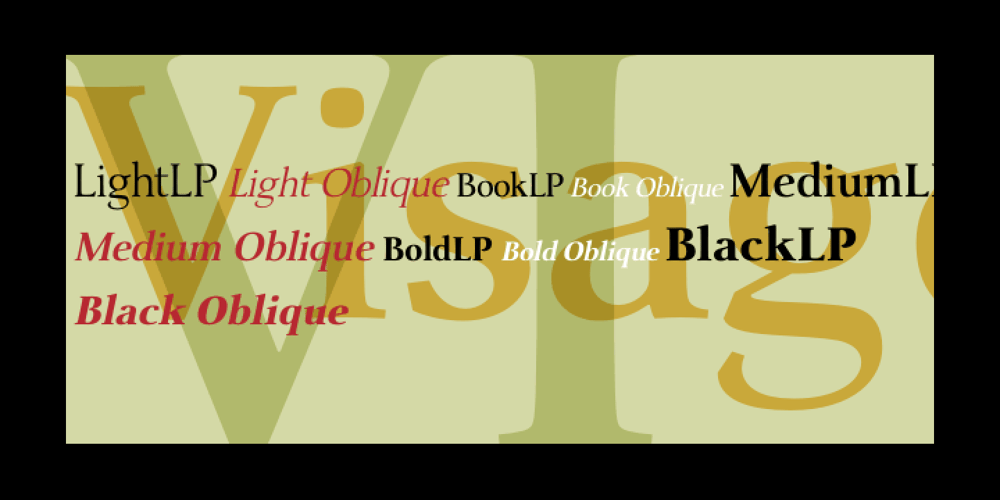
Visage LP
Visage LP font
Visage LP Font Family was designed by Garrett Boge and published by LetterPerfect. Visage LP contains 10 styles and family package options. Visage is a contemporary text family designed by Garrett Boge in 1988. Its delicate serifs, subtly tapered stems, and generous proportions offer both distinction and readability to the text at any size. The family consists of five weights – Light, Book, Medium, Bold and Black, with corresponding oblique styles.